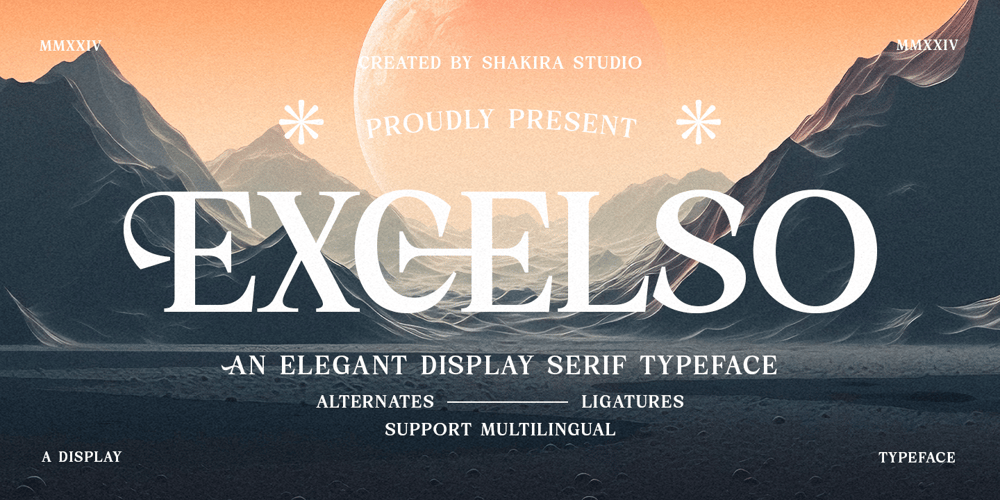
Excelso Font Family was designed by Idhham Cholid Rikzano Yahya and published by Shakira Studio. Excelso contains 2 styles and family package options. “Excelso is an Elegant Serif font designed to bring luxury and elegance to every design work. Available in regular and italic versions, this font offers great flexibility for a variety of purposes, from editorial to branding. With its smooth and bold serif characteristics, and support for alternates and ligatures, Excelso is the right choice for projects that require a classic and classy touch.”Here’s what you get: Regular & Italic All Multilingual symbol Opentype features ( ligature, alternate ) Accessible in the Adobe Illustrator, Adobe Photoshop, Adobe InDesign, even work on Microsoft Word. PUA Encoded Characters – Fully accessible without additional design software. Multilingual character supports : (Afrikaans, Albanian, Catalan, Croatian, Czech, Danish, Dutch, English, Estonian, Finnish, French, German, Hungarian, Icelandic, Italian, Lithuanian, Maltese, Norwegian, Polish, Portuguese, Slovenian, Spanish, Swedish, Turkish, Zulu)Follow my shop for upcoming updates, and for more of my work, If you need a custom license or have questions please visit our website: www.shakirastudio.comThank you!Shakira Studio